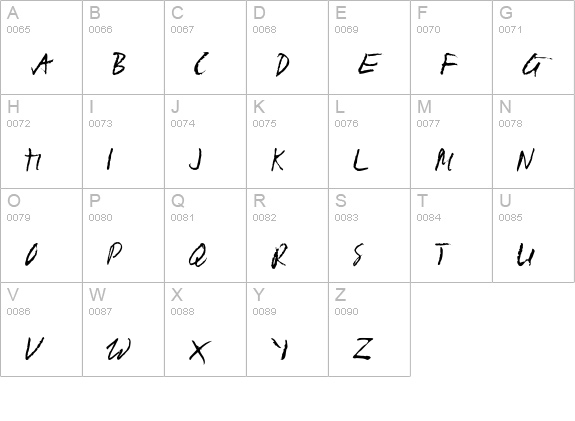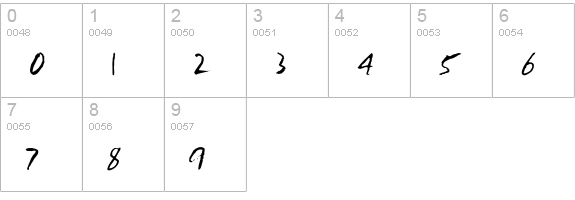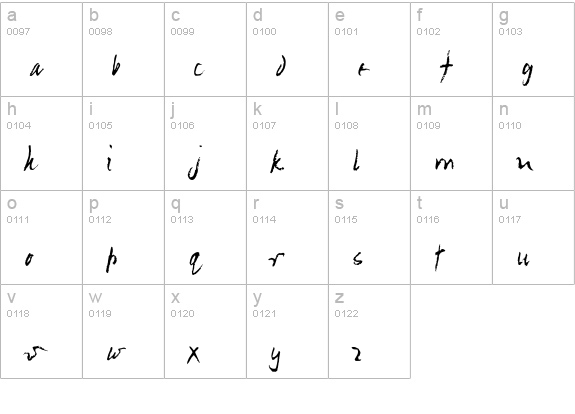
ChemistRough Font Details
ChemistRough font is a unique and creative typeface that exudes a sense of experimentation and innovation. Its rough and edgy appearance adds a touch of character and personality to any design project. The irregular strokes and distressed look give this font a handmade and artisanal feel, making it perfect for adding a touch of authenticity to your work. Best of all, ChemistRough font is completely free to download at FontsMarket.com. Whether you are working on a personal project or a commercial design, this font offers a versatile and eye-catching option that will make your creations stand out. With its bold and dynamic style, ChemistRough font is sure to make a lasting impression on any audience. Download it today and unleash your creativity with this exciting and expressive typeface.